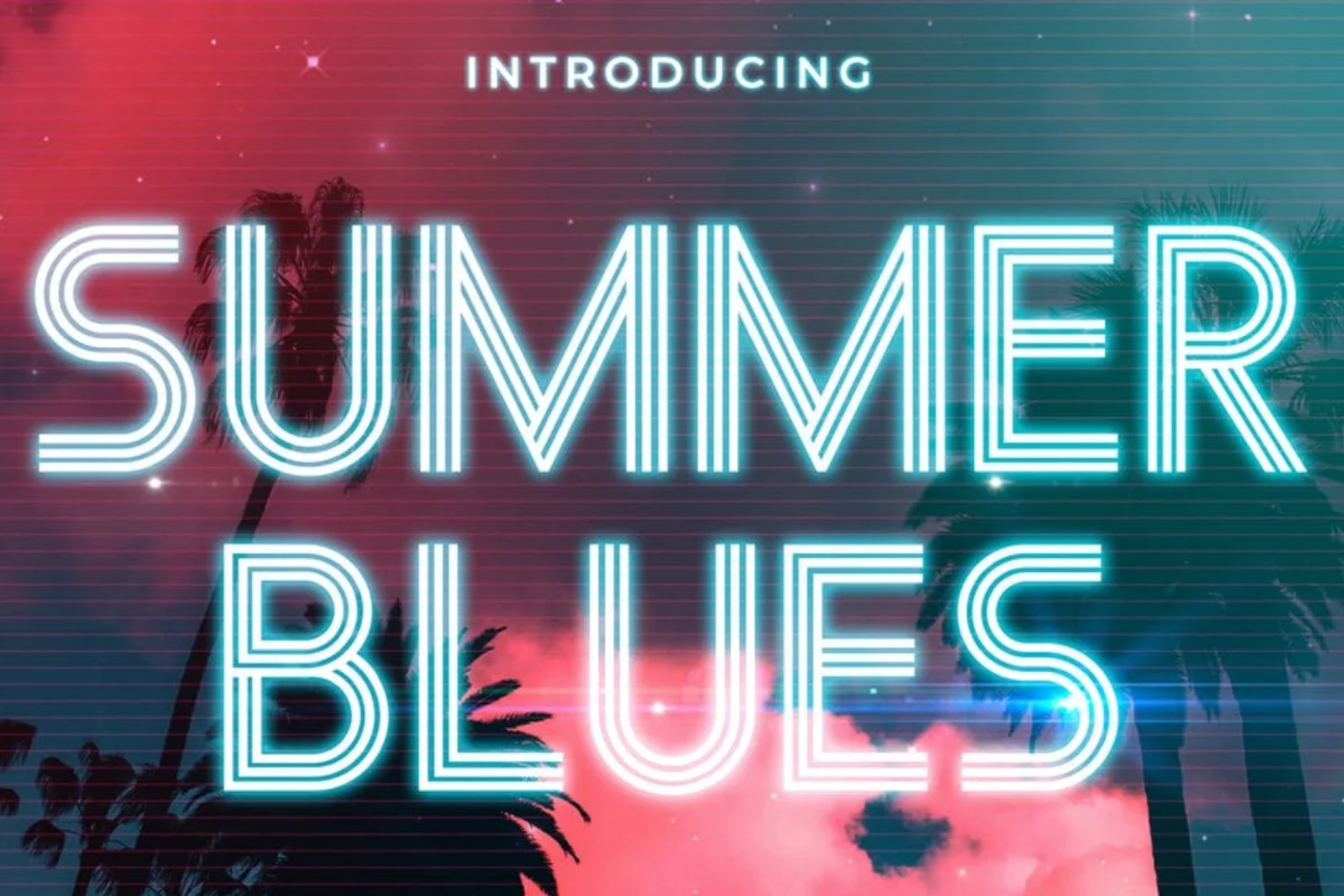
Summer Blues – Summer Retro Font
Summer Blues is a retro neon font with summer night theme.It’s great for your store, branding, quote and title for magazine, film, or product design.